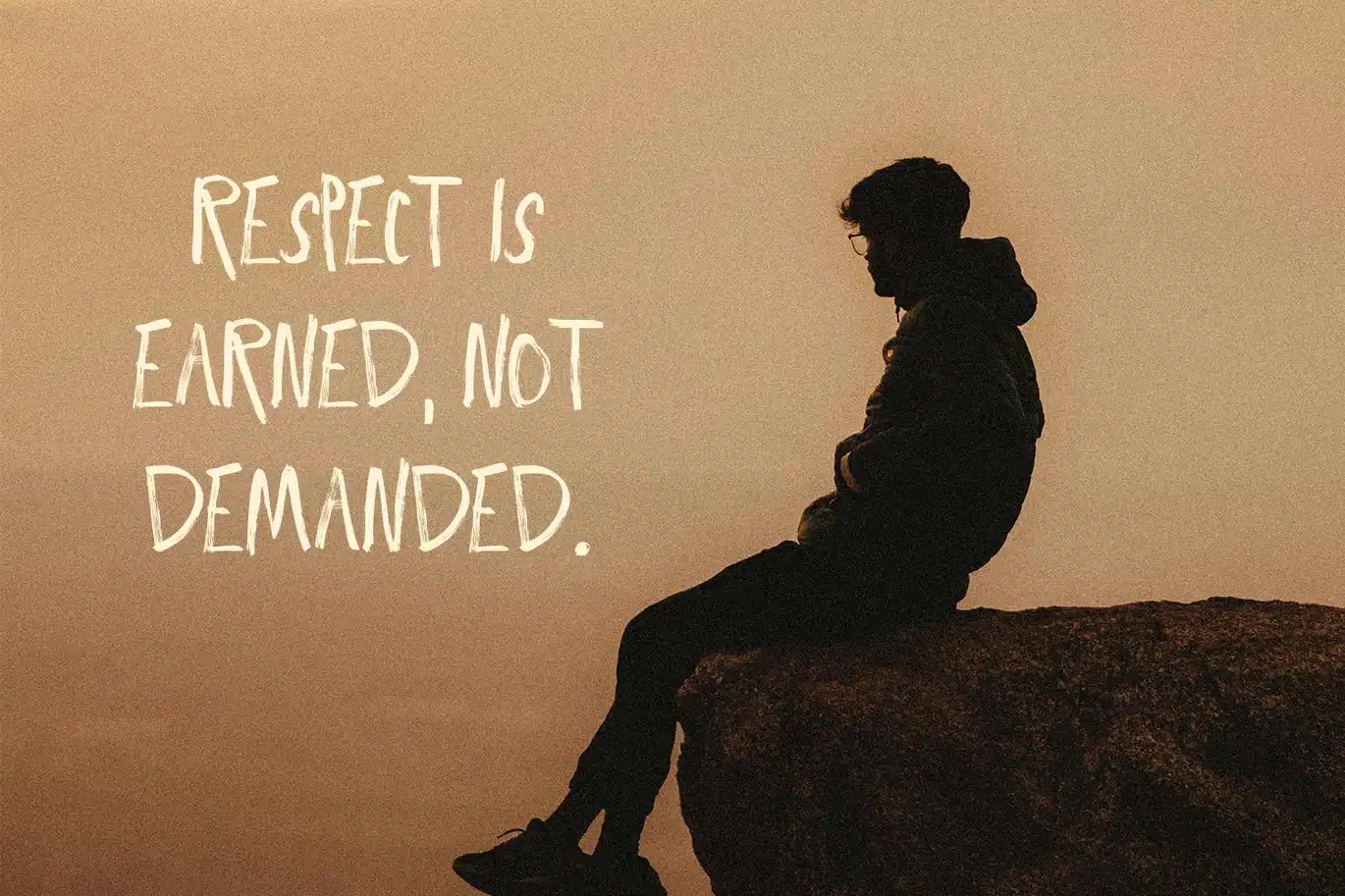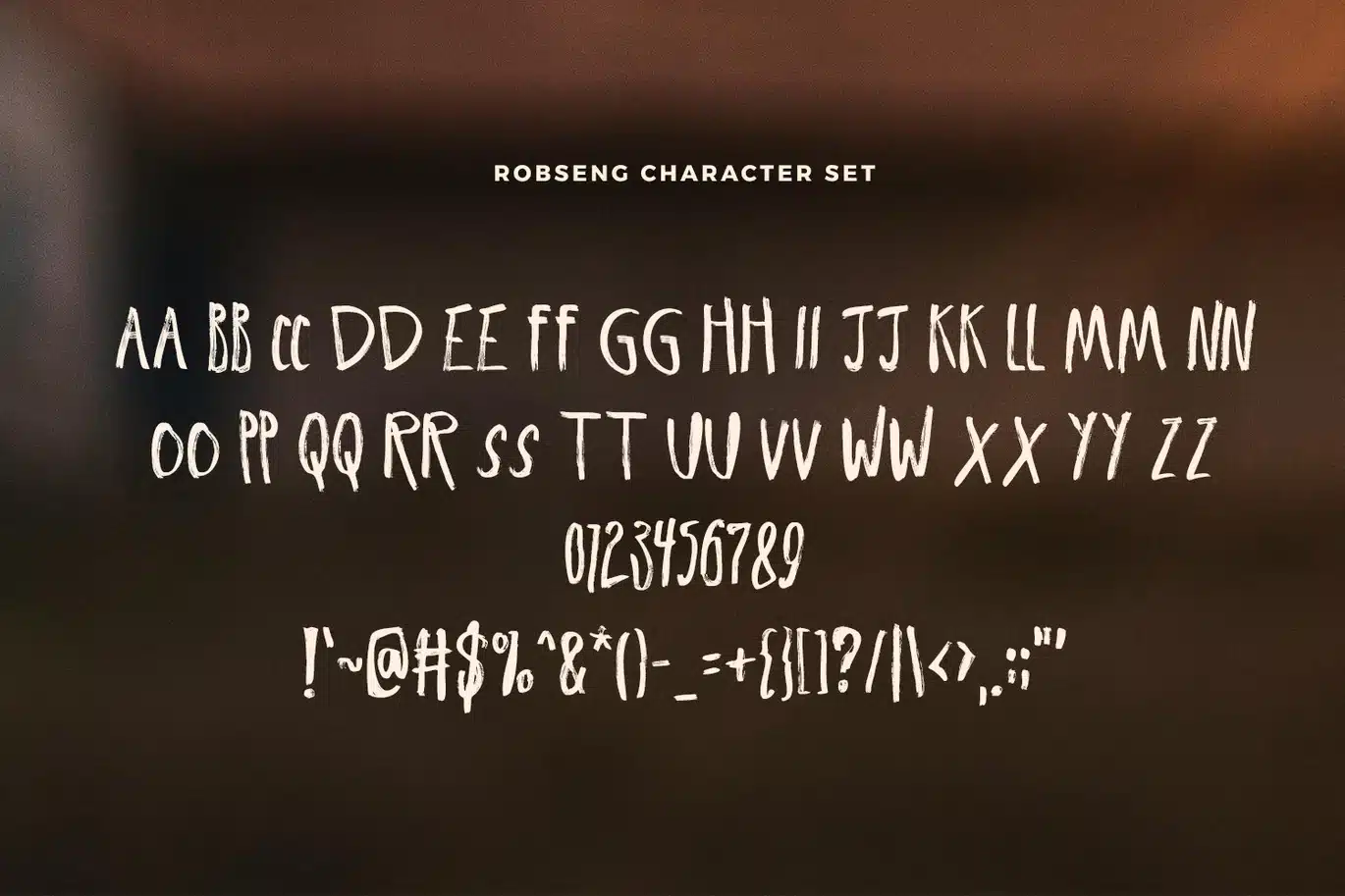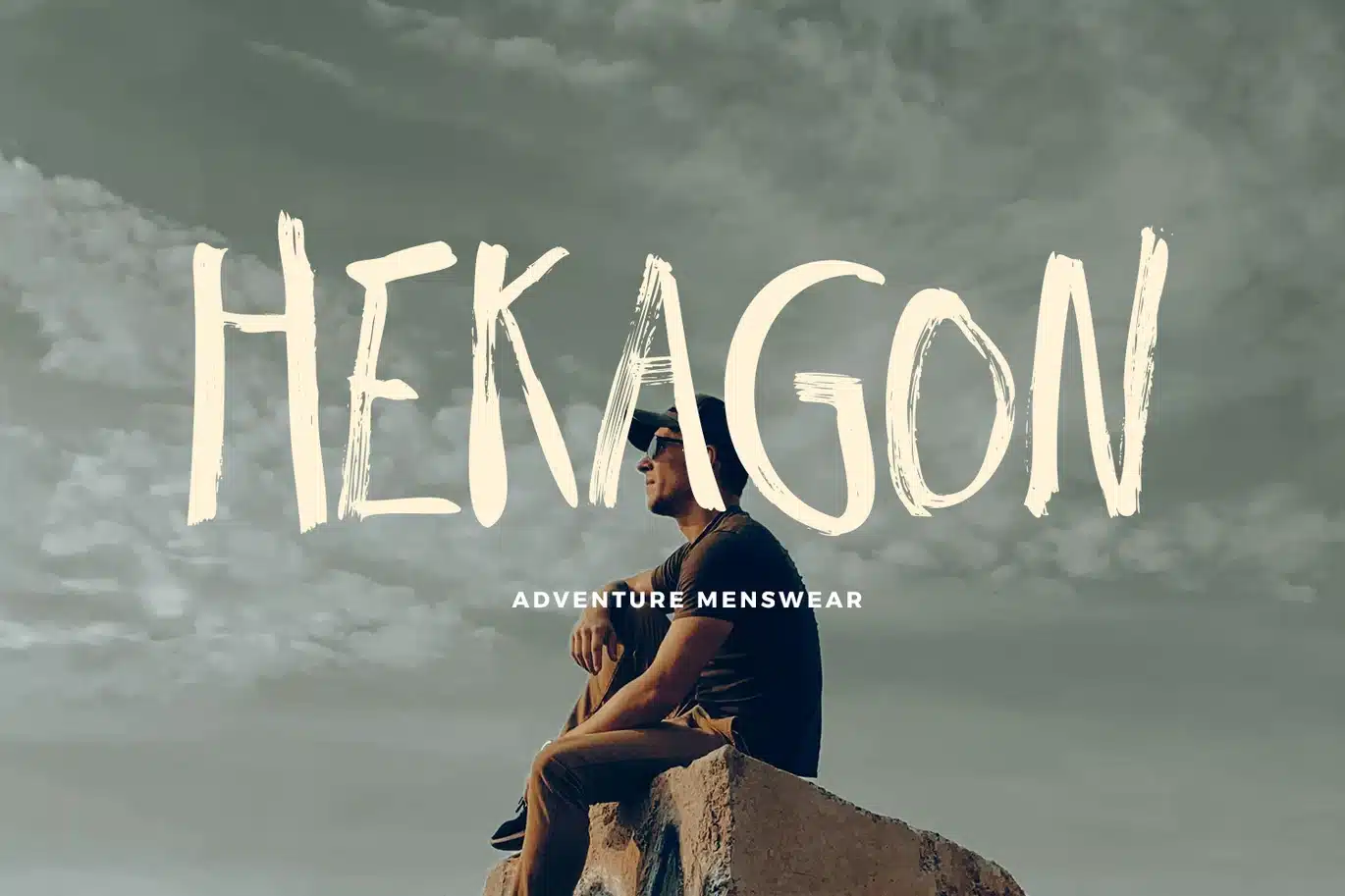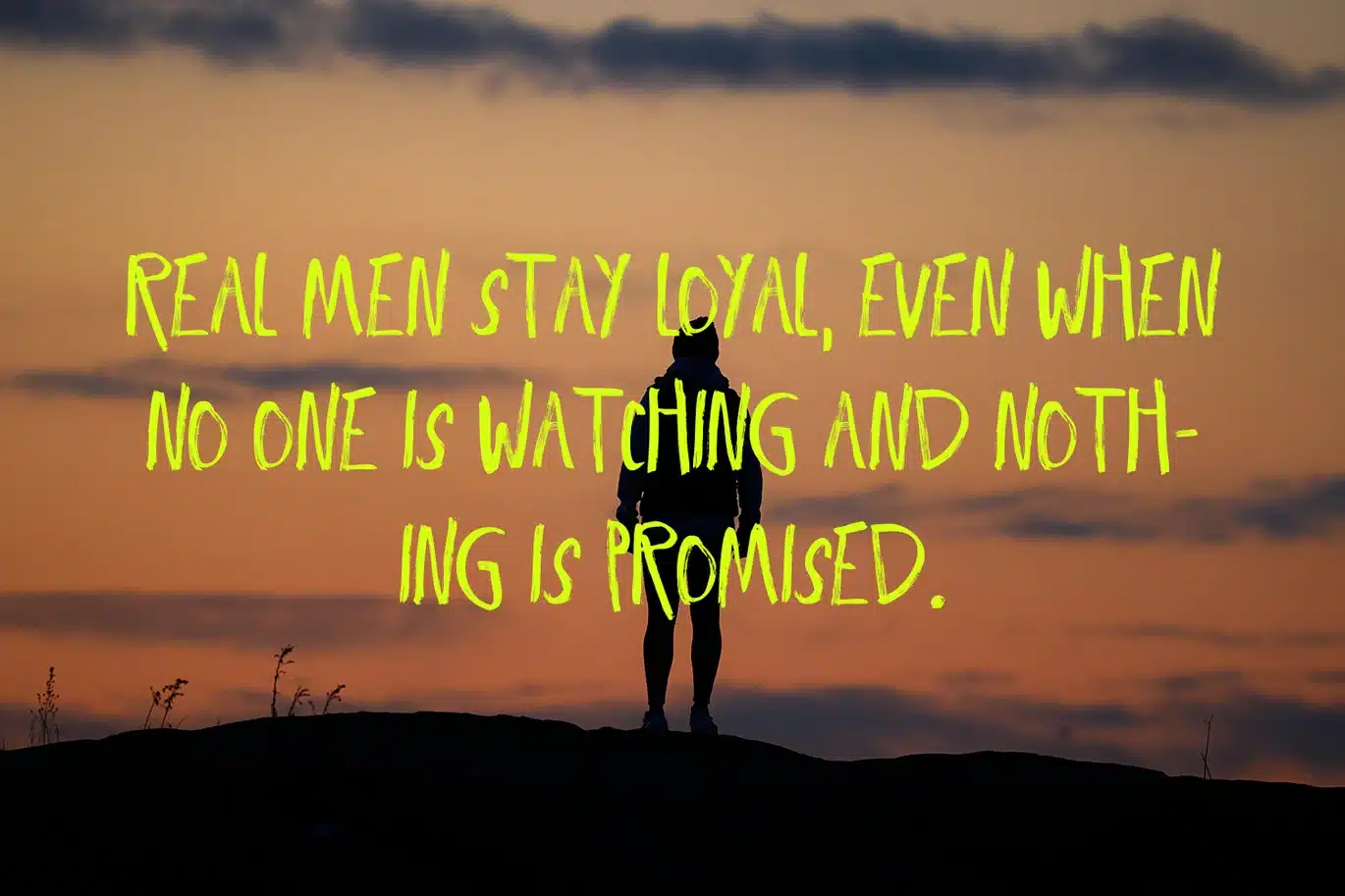
Robseng – The Handwriting Brush Font
Robseng is a powerful handwritten brush font that delivers bold personality and natural movement in every stroke. Inspired by real brush lettering, it brings an organic, energetic feel that instantly makes your design more expressive and eye-catching.
With its textured strokes and smooth rhythm, Robseng is perfect for logos, branding, social media, posters, packaging, and quote designs. It’s built to stand out, giving your visuals a strong, artistic identity while keeping them clean and readable.
Whether you're creating modern branding or viral-ready content, Robseng adds a handcrafted touch that feels authentic, stylish, and full of character.
Robseng Font Features
- Handcrafted brush lettering with natural stroke variation
- Designed to create bold and attention-grabbing typography
- Suitable for logo design, branding, packaging, and digital content